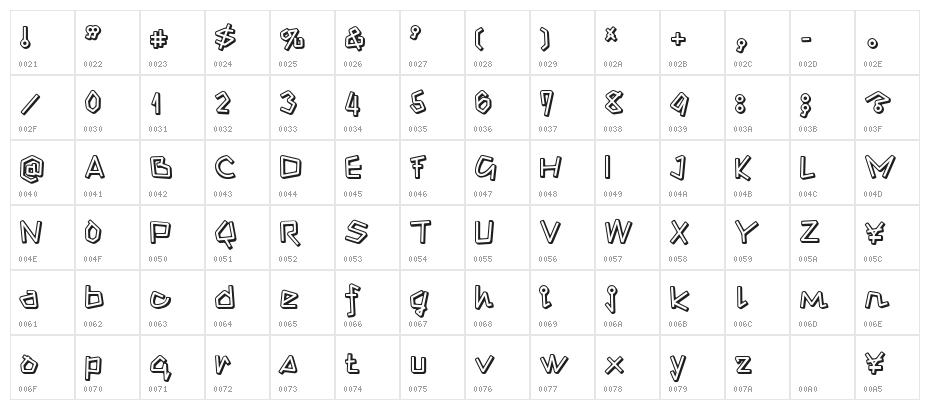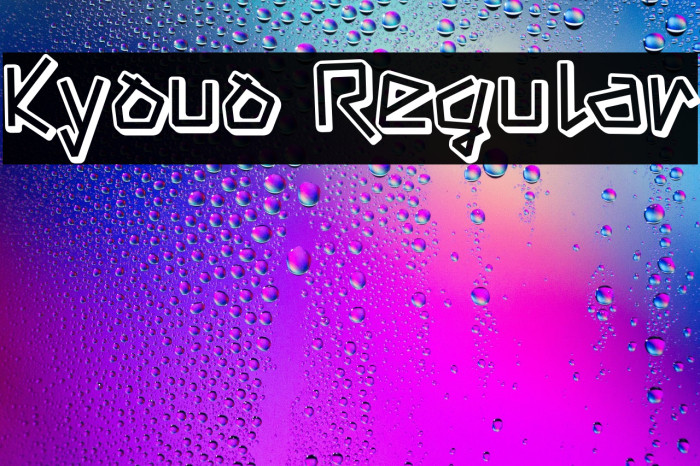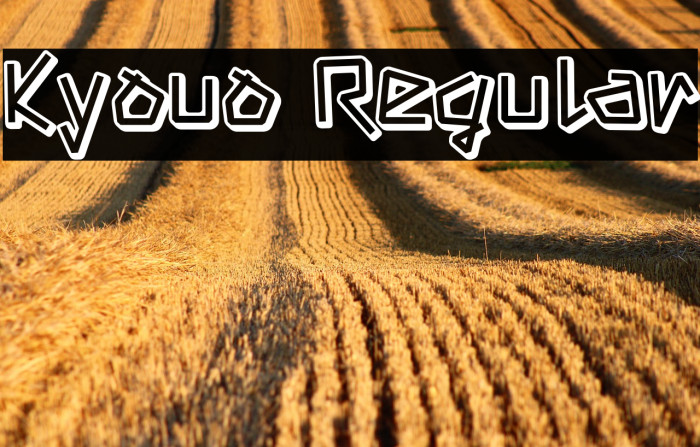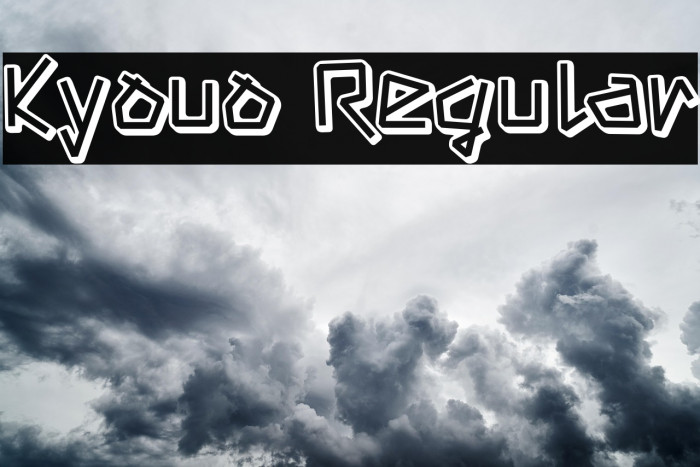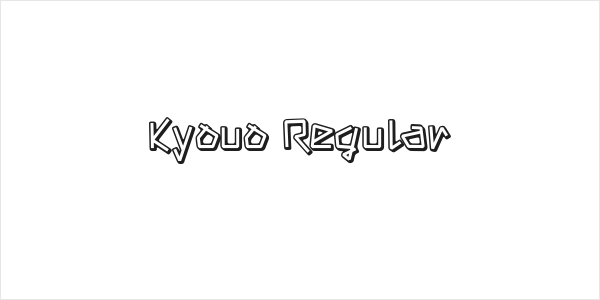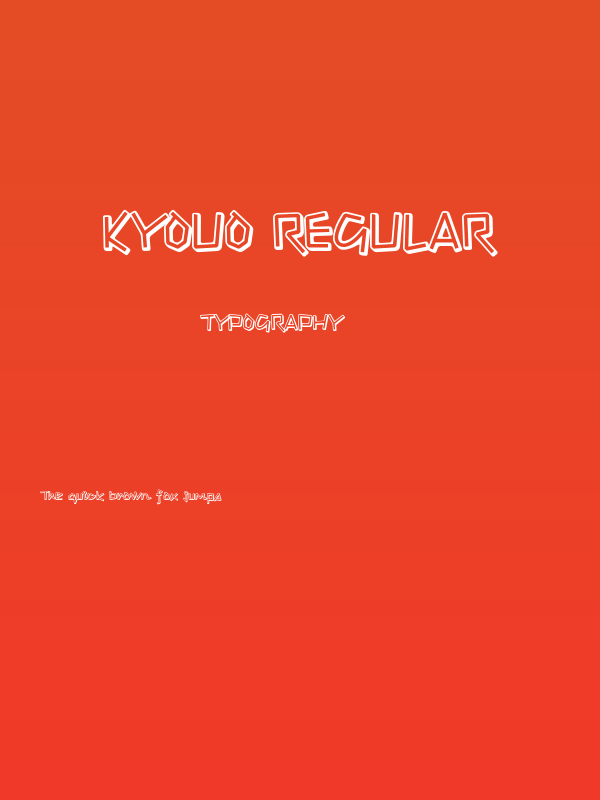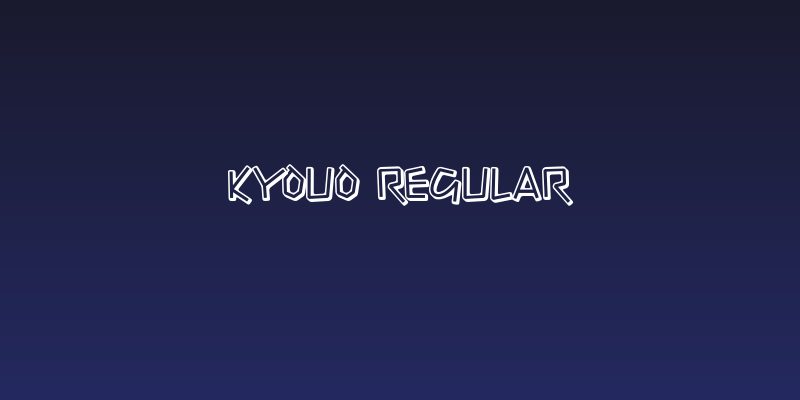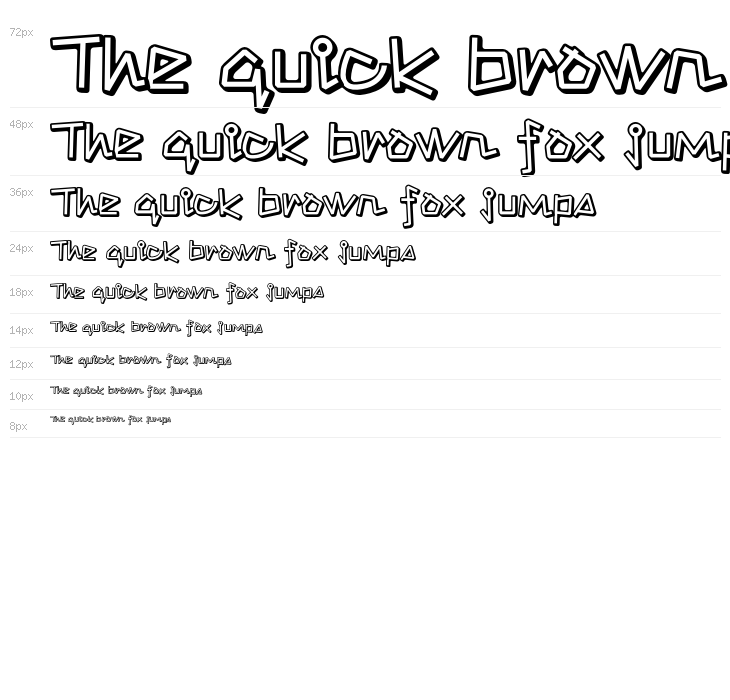
Kyouo Regular Font
Kyouo Regular Description
This font features a bold, playful style with a distinct outline around each character, giving it a cartoonish and dynamic appearance. The uppercase and lowercase letters maintain a consistent, quirky design with angular shapes and exaggerated curves. The numbers and special characters follow the same playful aesthetic, making them stand out with their bold outlines. The font's unique style is eye-catching and ideal for creative projects that require a fun and informal touch.
| Overall Style | Playful, Cartoonish, Fun |
| Proposed Projects | Ideal for children's books, comic strips, playful branding, and creative posters. |